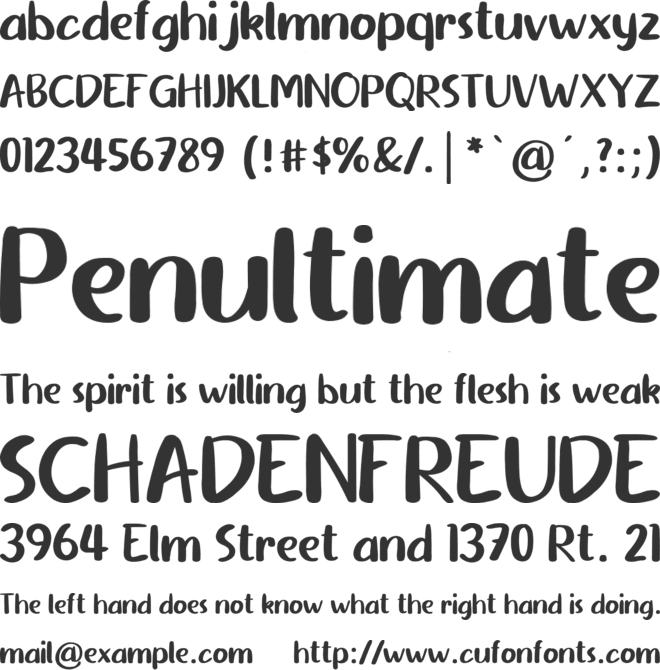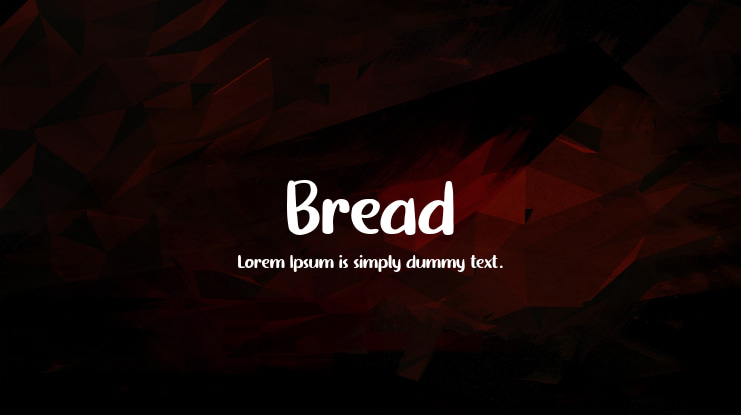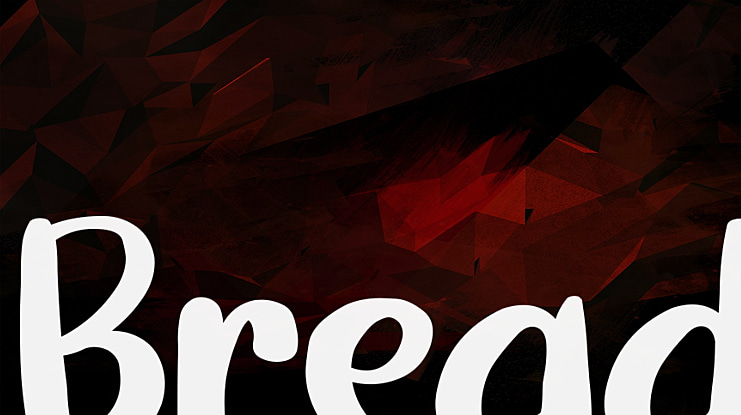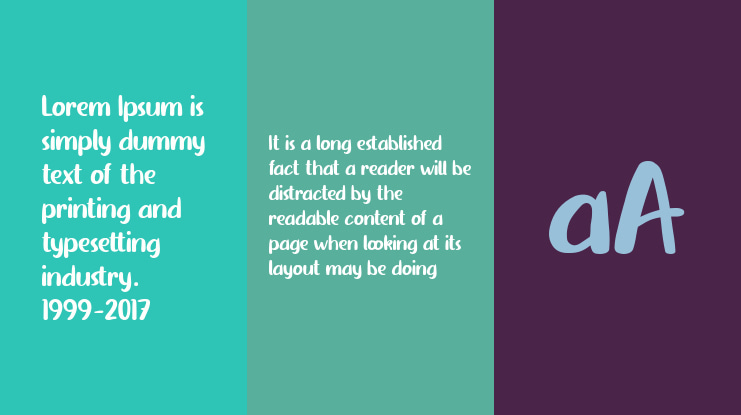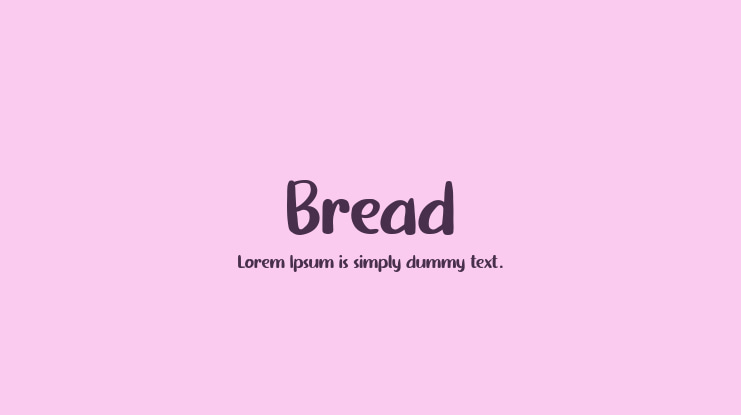
Bread Font Family
Bread font with handwritten styles. A collection of letters and numbers suitable your projects also great for Logotype, Branding Design, Logo Design, Digital Lettering Arts, T-Shirt/Apparel, Poster, Magazine, Signs, Advertising Design, and any design needs.